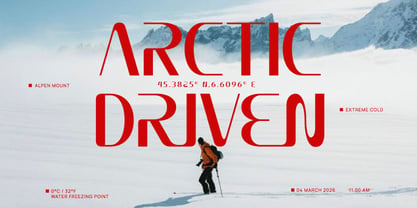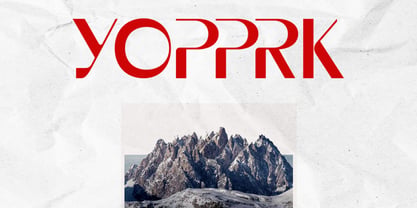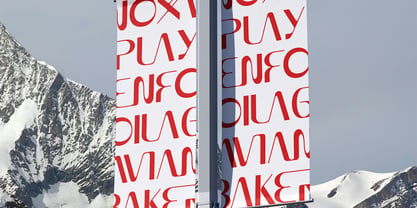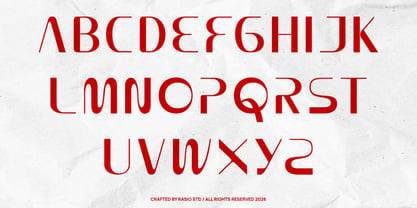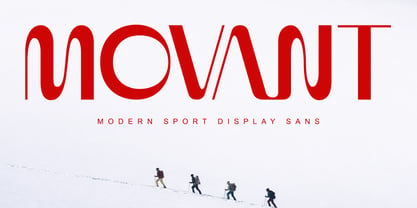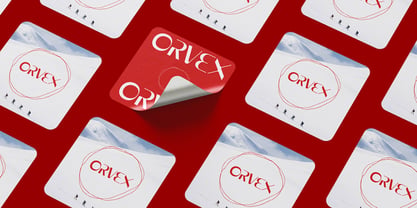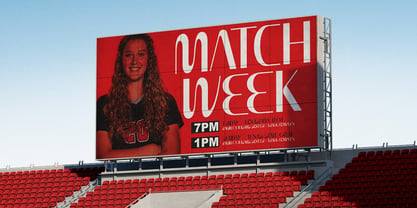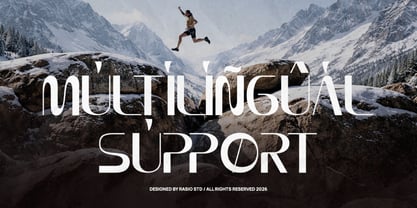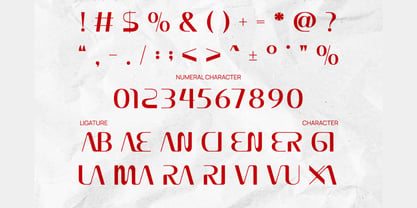
Movant
by Rasio Studio
The Movant Font Family was designed by Fajar Indra and published by Rasio Studio. Movant contains 1 styles. More about this family
Movant is a modern sport display sans serif font inspired by endurance, outdoor performance, and contemporary athletic branding. The typeface features sleek geometric curves, distinctive stroke transitions, and futuristic letterforms that create a dynamic and energetic visual presence. Movant is highly relevant for sports branding, esports design, fitness campaigns, outdoor adventure graphics, and athletic product packaging. The font is ideal for logos, sports apparel branding, poster headlines, event graphics, gym marketing materials, gaming visuals, and modern advertising projects that require energetic and futuristic typography.
Designers: Fajar Indra
Foundry: Rasio Studio